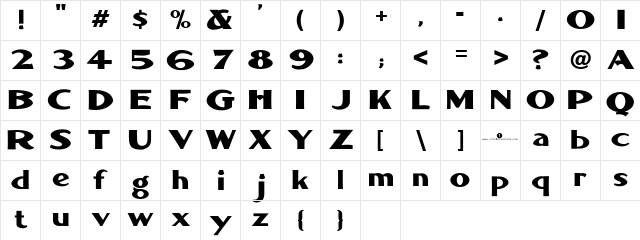
LHF Advertisers Plug ATK Regular Free Font
LHF Advertisers Plug ATK Regular
LHF Advertisers Plug ATK Family
LHF Advertisers Plug ATK Regular
Complete LHF Advertisers Plug ATK Regular glyph index. Displaying only characters natively supported by LHF Advertisers Plug ATK Regular font.
Design Context for LHF Advertisers Plug ATK
LHF Advertisers Plug ATK is a composed and adaptable typeface that performs quietly and consistently across a wide range of design contexts.